Badson Type Foundry
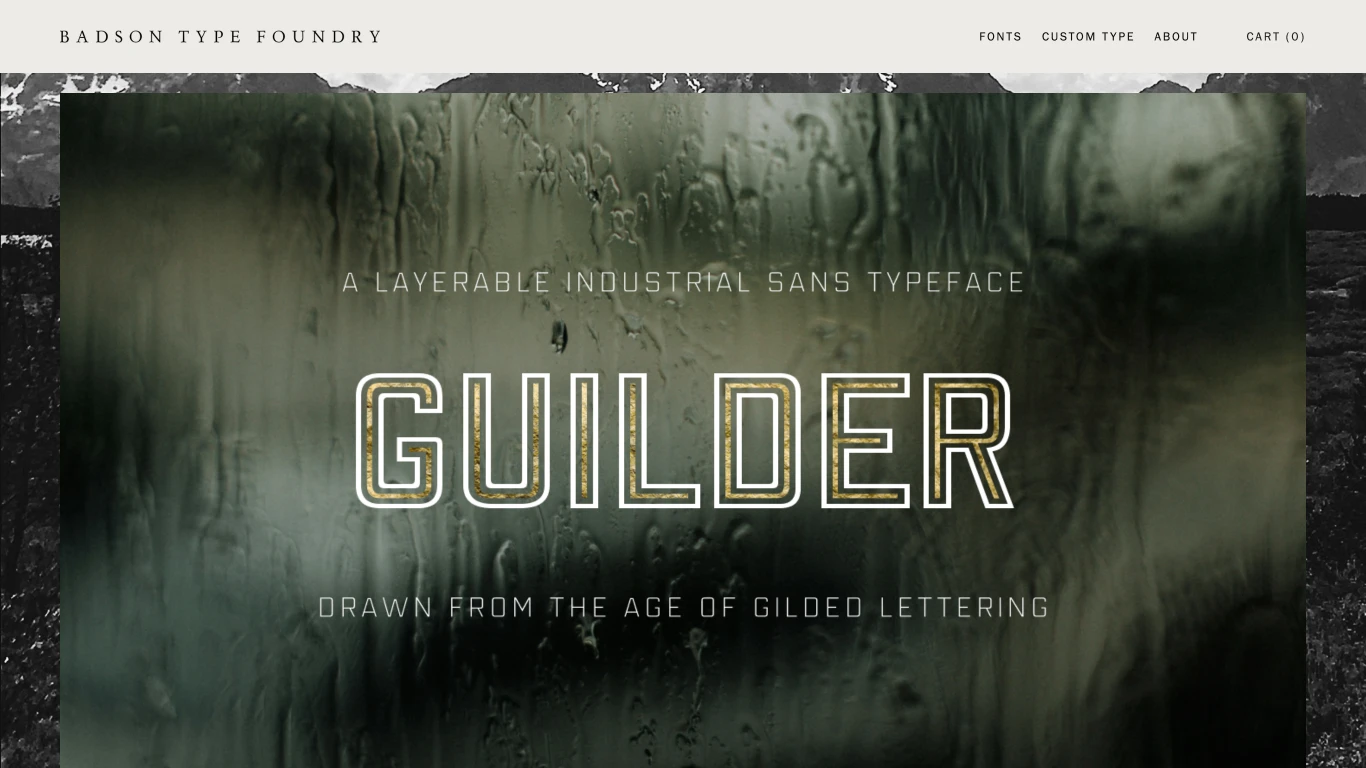
2014
Badson Type Foundry is a boutique type design studio producing brand-ready, personality-driven typefaces focused on typographic craft. Founded by Kyle Read in 2014 as Badson Studio, they expanded to include the type foundry, offering high-quality typographic tools that elevate originality and express authentic brand voices. Notable offerings include the Ermine typeface, inspired by early 20th-century WPA National Park Service posters, and the Brand Palette Collections, curated font bundles designed for specific industry applications to assist designers in brand-building efforts. Their commitment to craft and versatility makes them a valuable resource for designers and brands seeking distinctive typographic solutions.